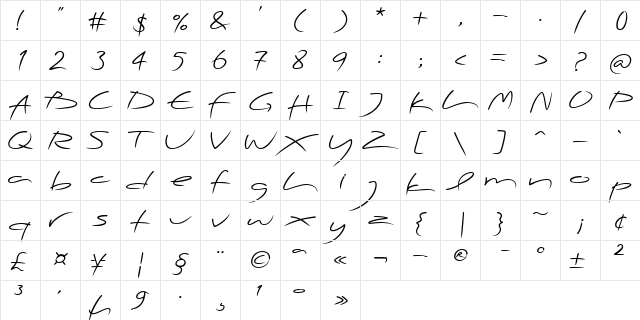
PF Scandal Pro Display Regular
| Foundry | Parachute? Worldwide |
| Designer | Angeliki Skandaleli |
Design Context for PF Scandal Pro Display Typeface
PF Scandal Pro Display brings ornamental detail and strong personality to headlines and identities, where visual impact matters more than quiet functionality.
Font Pairing: Pair with a clean neutral sans-serif for body copy to let PF Scandal Pro Display's character lead without overwhelming the composition.
Pro Tip: Use PF Scandal Pro Display exclusively at display sizes — it was designed to be seen, not read at length. Let a neutral companion handle body copy.